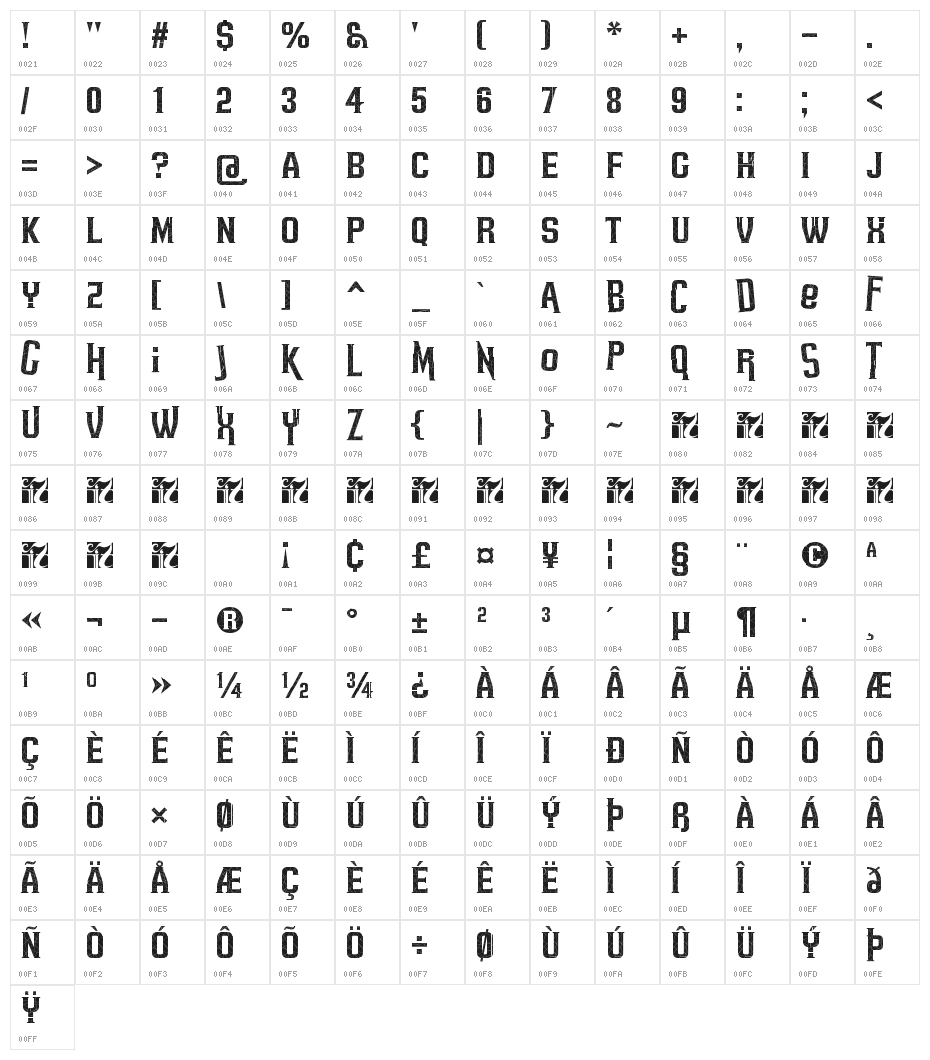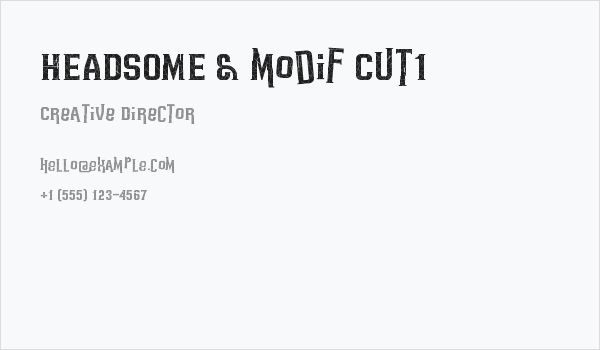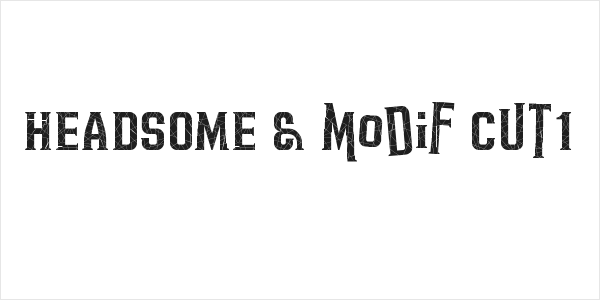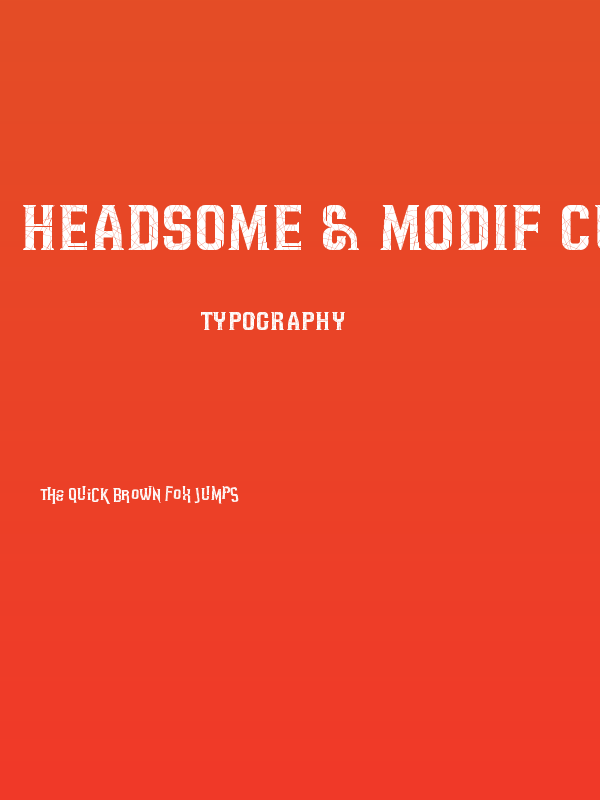
HEADSOME & modif Cut1 Font
HEADSOME & modif Cut1 Description
This font features a bold and striking design with a cracked, textured appearance that gives it a rugged and edgy feel. The uppercase and lowercase letters maintain a consistent style, with sharp angles and a slightly condensed form. The numbers and special characters follow the same aesthetic, ensuring uniformity across all glyphs. The font's unique texture adds a layer of depth and interest, making it stand out in any design. Its boldness and distinct style make it suitable for projects that require a strong visual impact.
| Proposed Projects | Ideal for posters, album covers, branding, and any project requiring a bold, edgy look. |